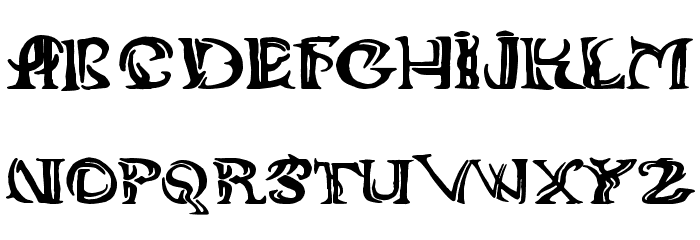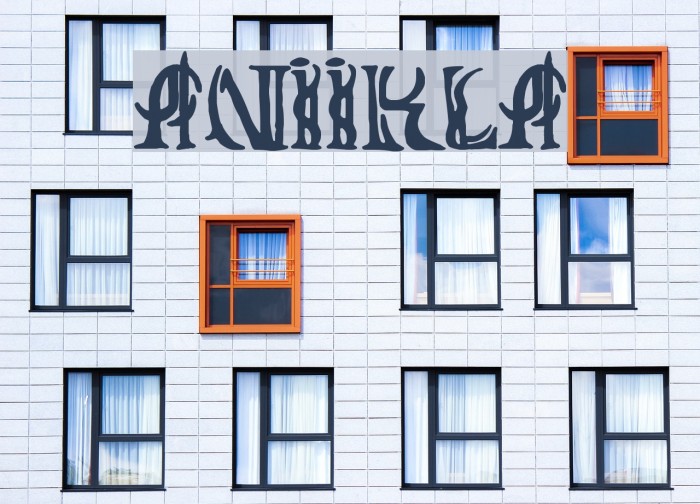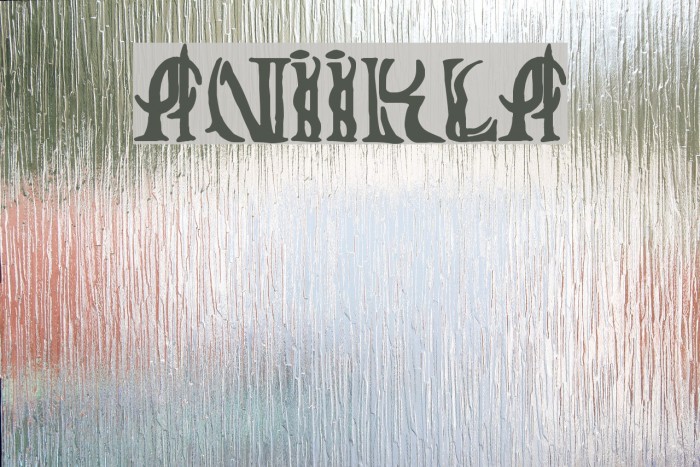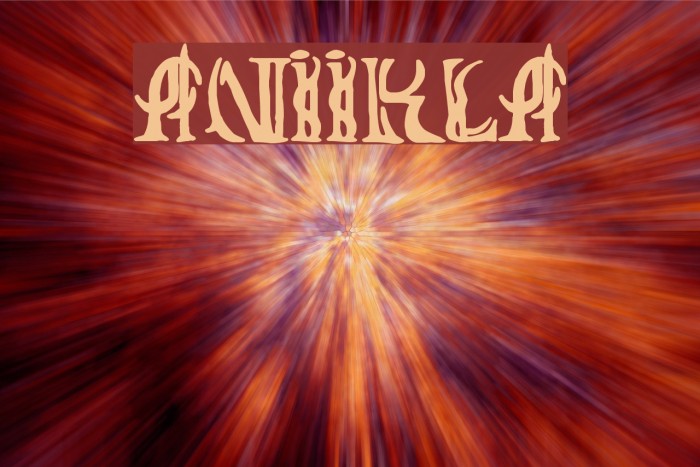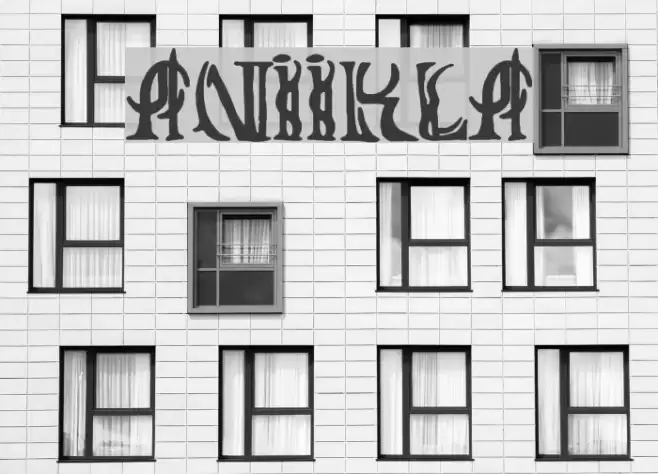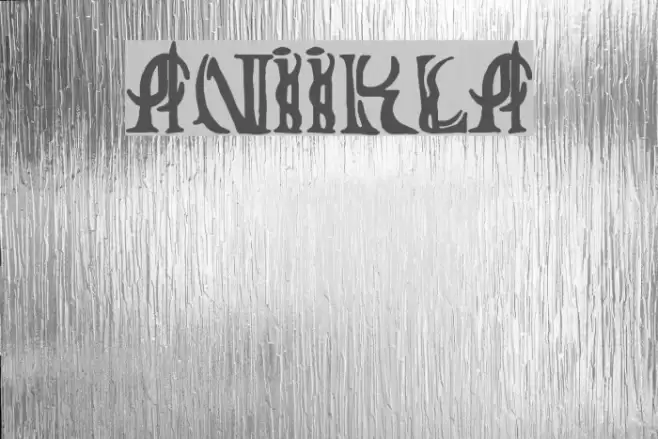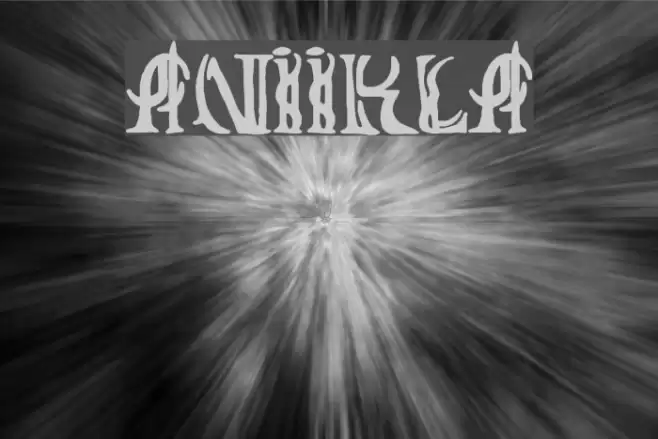
ANIIKLA Font
This font features a highly decorative and intricate design, characterized by bold, sweeping strokes and elaborate serifs. The uppercase letters exhibit a gothic influence with sharp, angular elements and dramatic curves, creating a sense of movement and flair. The lowercase letters maintain this ornate style, ensuring consistency across the typeface. The numerals are equally stylized, with unique flourishes that add to the overall aesthetic. Special characters are designed to match the elaborate theme, making this font suitable for projects that require a strong visual impact.
A decorative, gothic-inspired font with bold, intricate strokes and elaborate serifs.